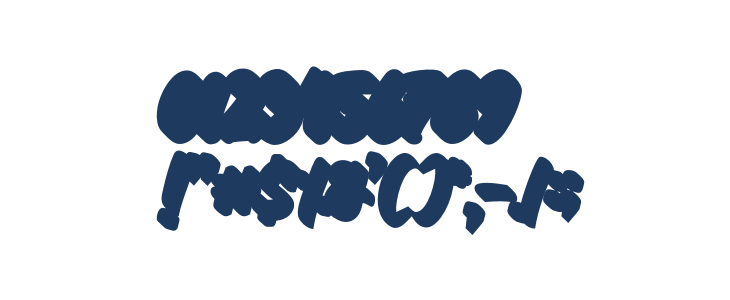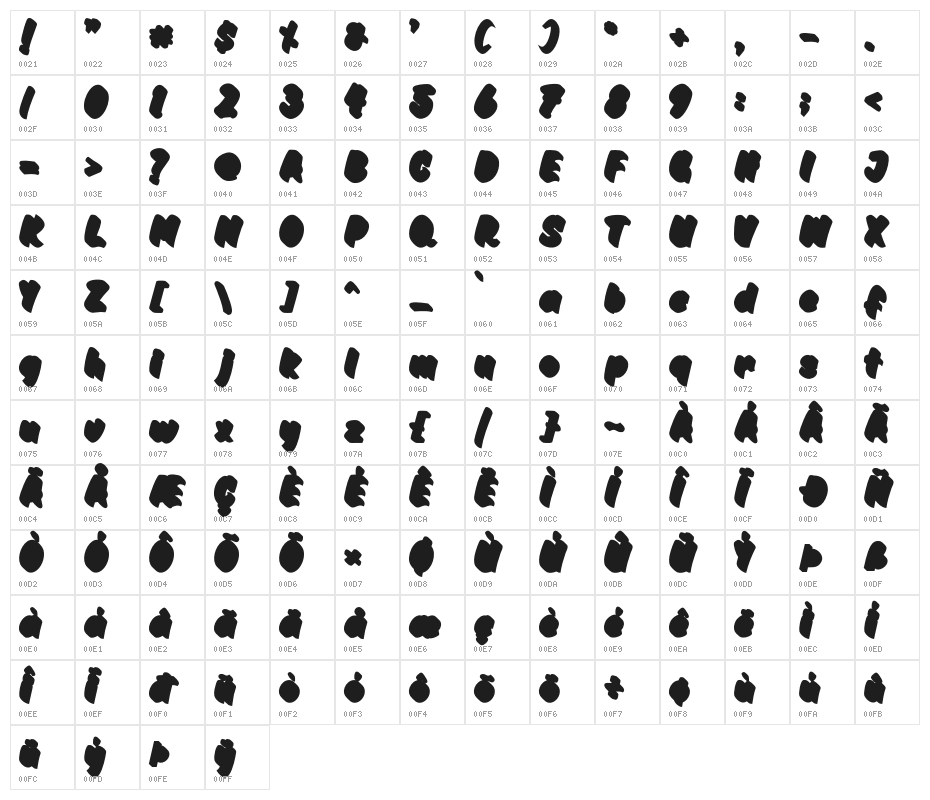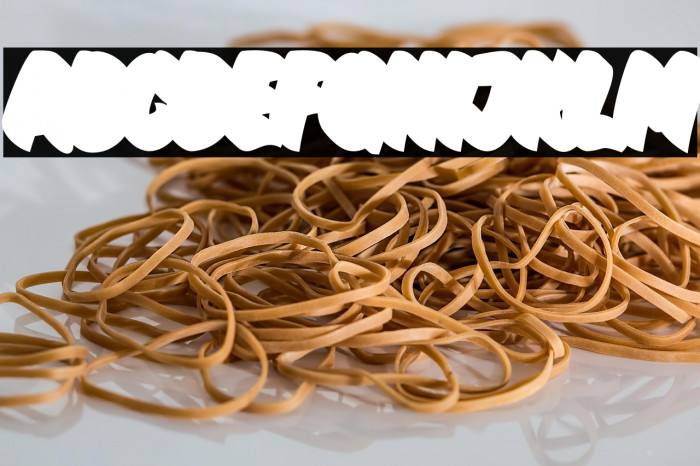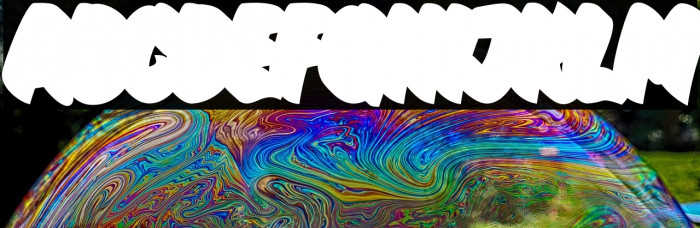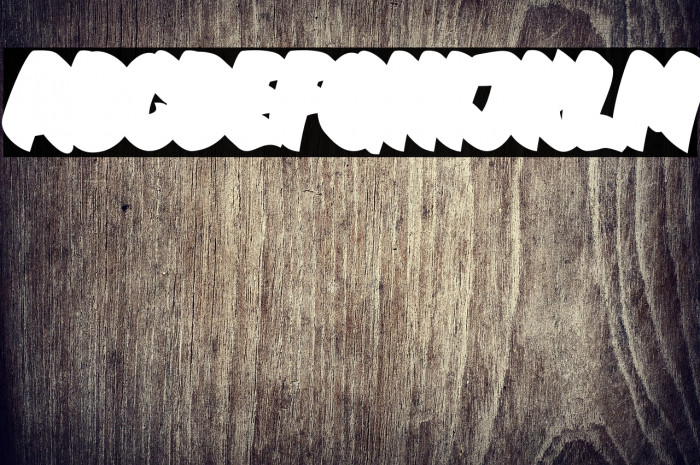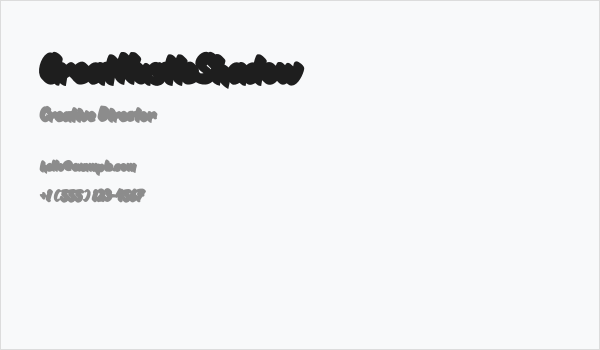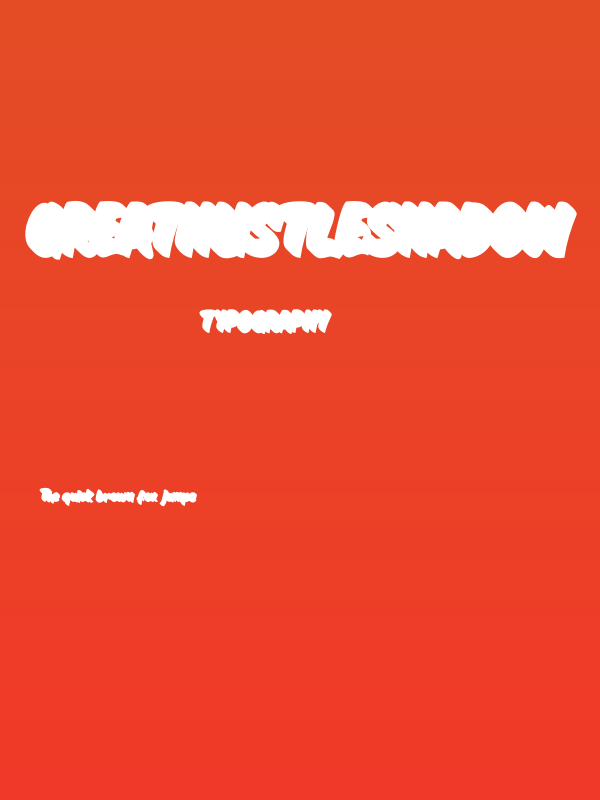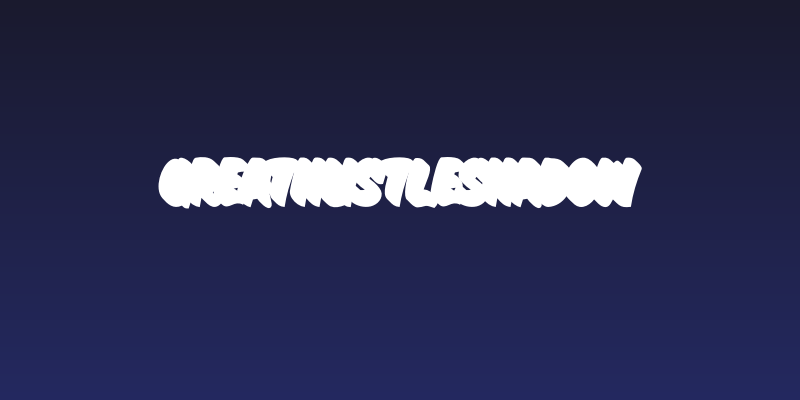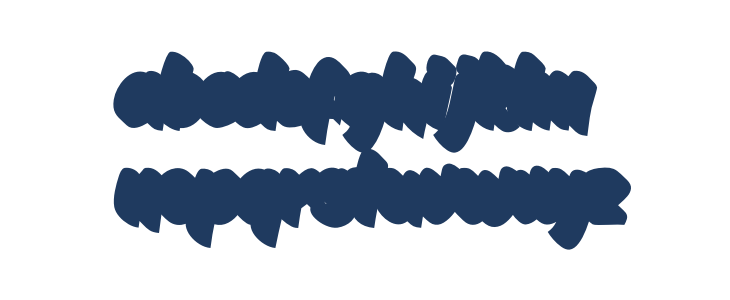
GreatHustleShadow Font
GreatHustleShadow Description
This font features a bold, shadowed style that gives it a striking and dynamic appearance. The characters are thick and rounded, with a playful and energetic vibe. The shadow effect adds depth and dimension, making each letter stand out prominently. This font is highly decorative, with a strong presence that commands attention. The uppercase and lowercase letters maintain a consistent style, with smooth curves and a slightly condensed form. The numbers and special characters are equally bold and maintain the same shadowed effect, ensuring uniformity across all elements.
| Proposed Projects | Ideal for posters, headlines, branding, and any project that requires a bold and eye-catching typeface. |